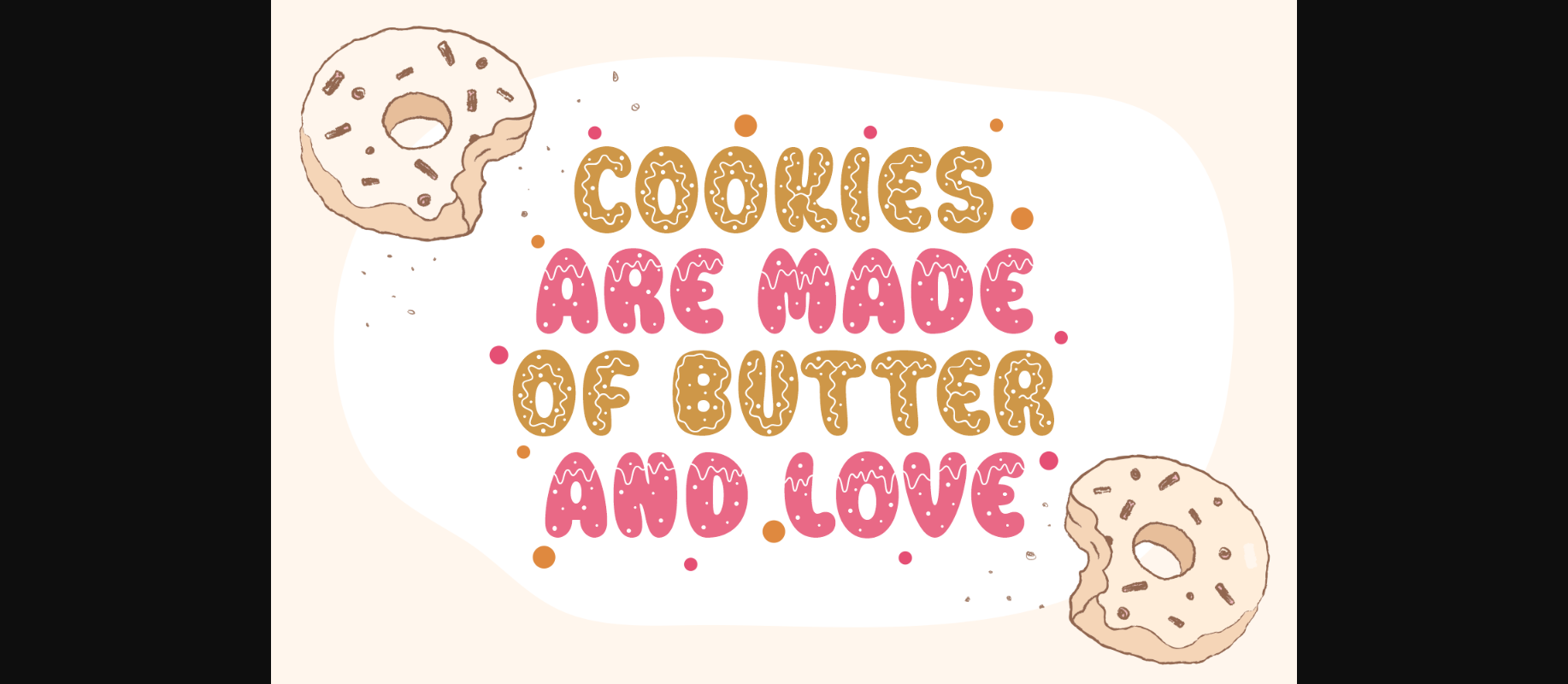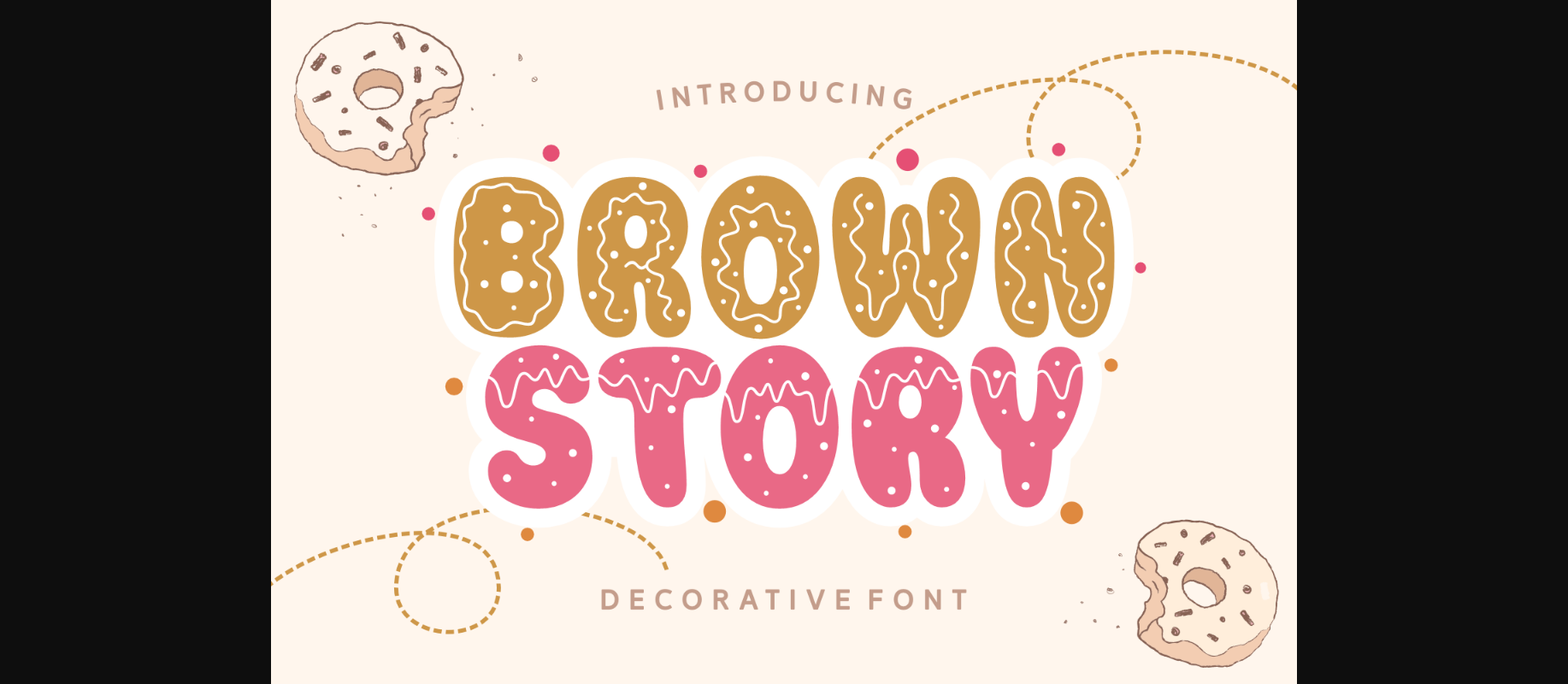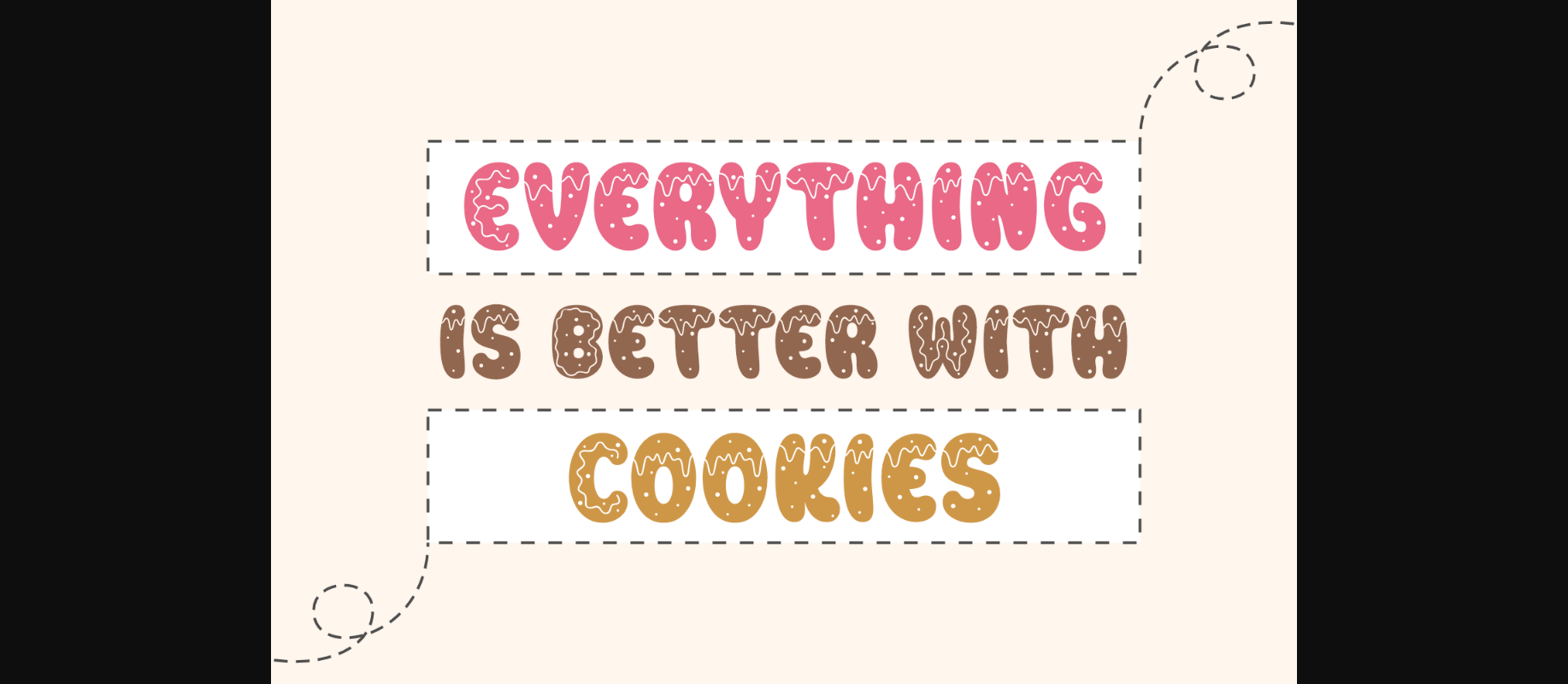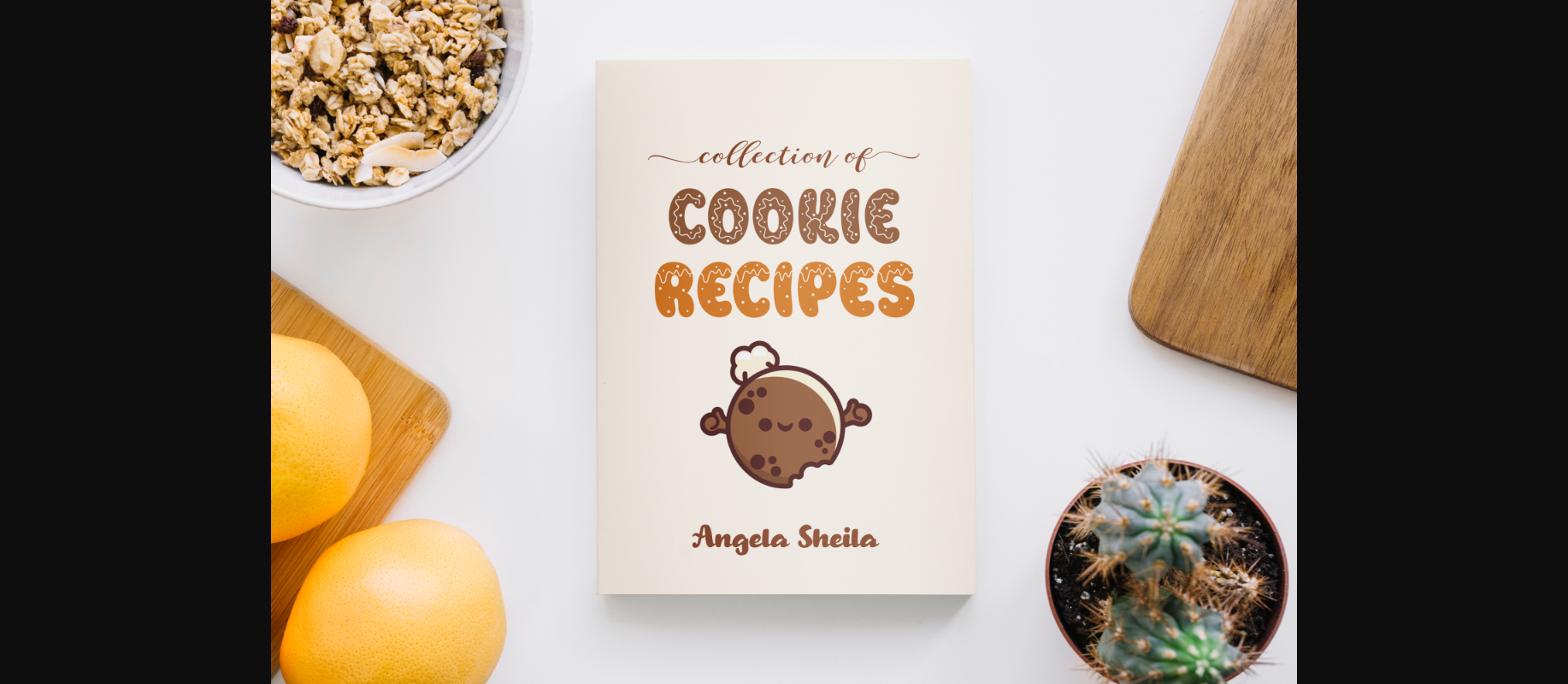
Brown Story Font
About Brown Story Font
Introducing Brown Story, an enchantingly decorative font inspired by the quaint charm of homemade cookies. Perfectly suited for a myriad of applications, Brown Story is ready to add a dash of warmth and casual elegance to your projects. From bespoke t-shirt designs and whimsical children’s book illustrations to heartwarming greeting cards, playful stickers, and vibrant posters, this font is your companion to captivating creations. Feeling adventurous? The casual flair of the Brown Story typeface also beautifully complements blog writing and social media content, drenching every word in good vibes. Give Brown Story a spin, and experience your designs come alive with its rich and jovial character.